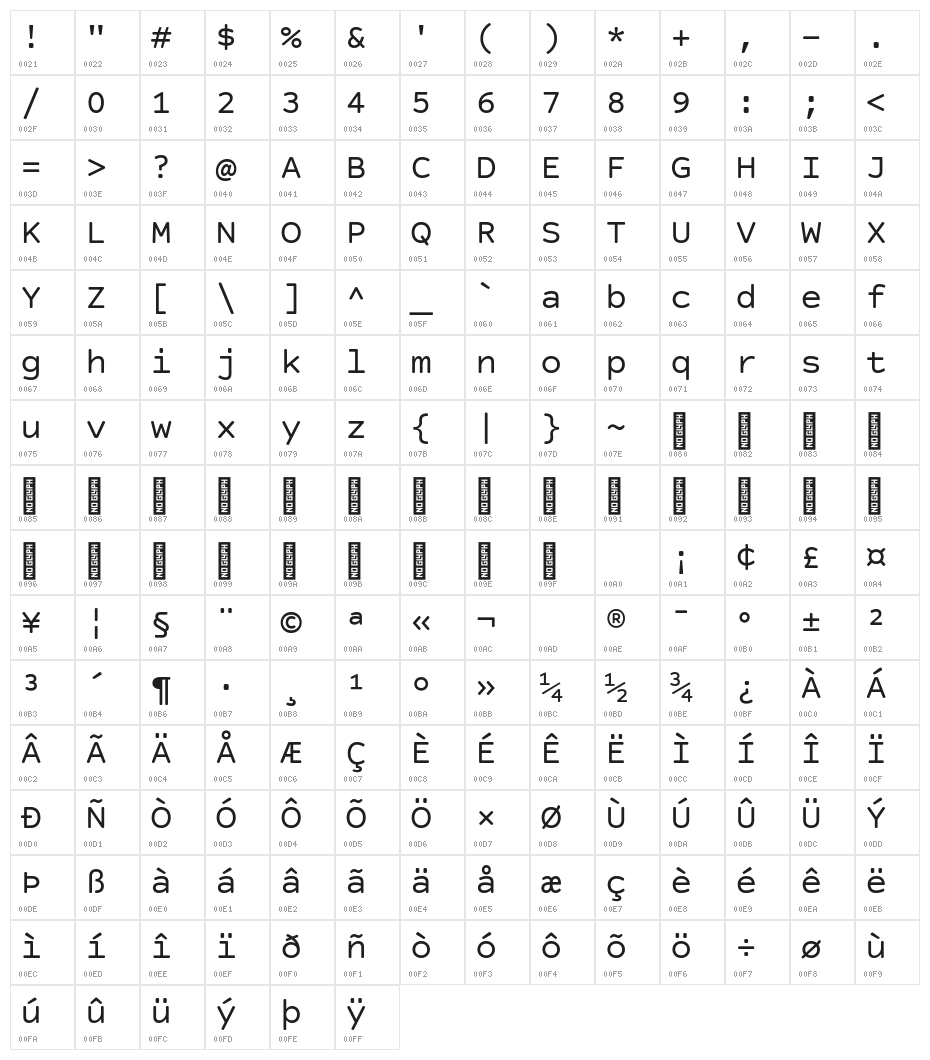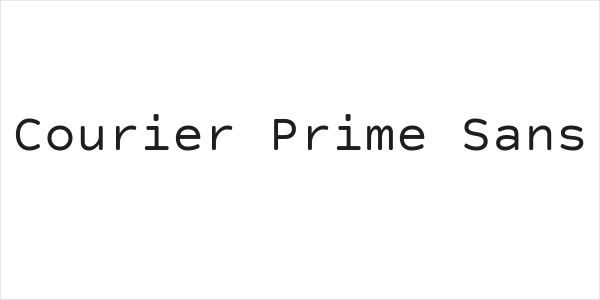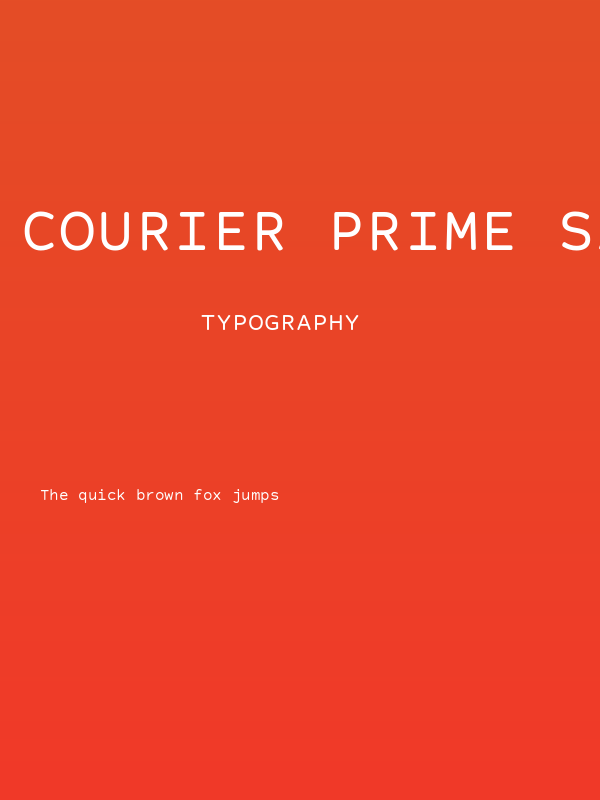
Courier Prime Sans Font
Courier Prime Sans Description
This font features a clean, modern sans-serif style with a monospaced design. Each character is evenly spaced, providing a uniform appearance that enhances readability. The strokes are consistent in width, offering a low contrast that contributes to its straightforward and functional aesthetic. The font maintains a balanced and uncluttered look, making it suitable for various applications where clarity and precision are essential. Its simplicity and geometric shapes give it a contemporary feel, while the monospaced nature ensures that each character aligns perfectly, which is ideal for coding and technical documents.
| Use Case | Coding, Technical documents, Data tables |
| Proposed Projects | Ideal for coding, technical documents, data tables, and any project requiring precise alignment. |